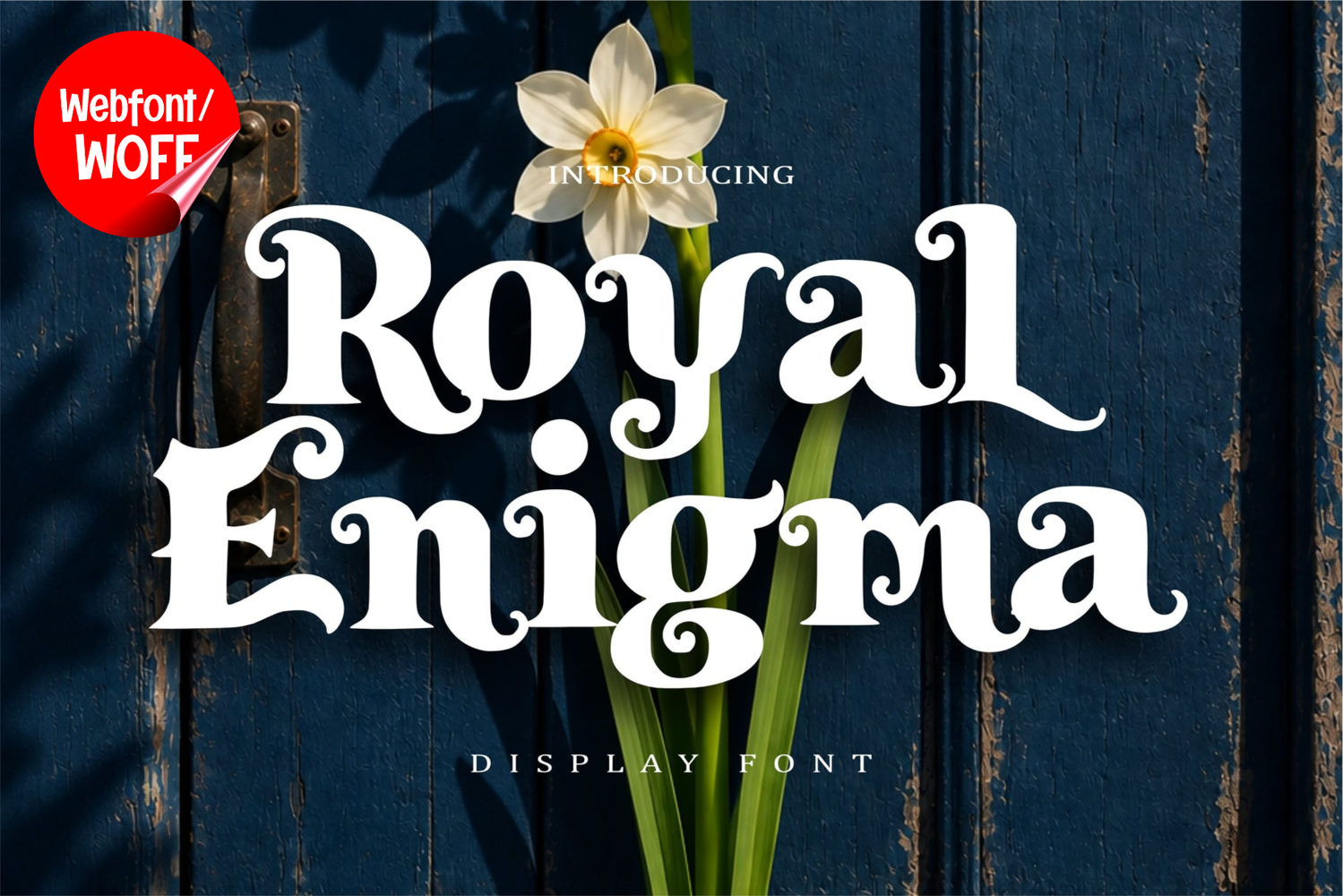
Royal Enigma | Classical Elegant Webfont
Royal Enigma is a classical elegant webfont designed to bring timeless sophistication and refined typography to modern websites. Its graceful letterforms combine a traditional aesthetic with a polished appearance, making it an excellent choice for stylish landing pages, luxury brands, fashion websites, wedding websites, portfolio pages, beauty businesses, editorial platforms, and premium product presentations.
The font creates a strong visual impact when used for website headlines, hero sections, page titles, promotional banners, brand names, featured content, and elegant call-to-action text. Its uppercase characters provide a refined and sophisticated presence, while the lowercase characters create a smooth and harmonious reading flow.
Royal Enigma includes multilingual support, allowing websites to present elegant typography across a wide range of languages. Number and punctuation characters are also included for flexible web compositions, headings, prices, dates, navigation elements, and promotional content.
The classical character of Royal Enigma works especially well with minimalist layouts, luxury branding, fashion editorials, wedding platforms, boutique websites, beauty products, jewelry stores, restaurants, photography portfolios, and creative studios. Whether used for a large hero headline or a subtle brand statement, it adds an upscale and memorable typographic personality to the overall web design.